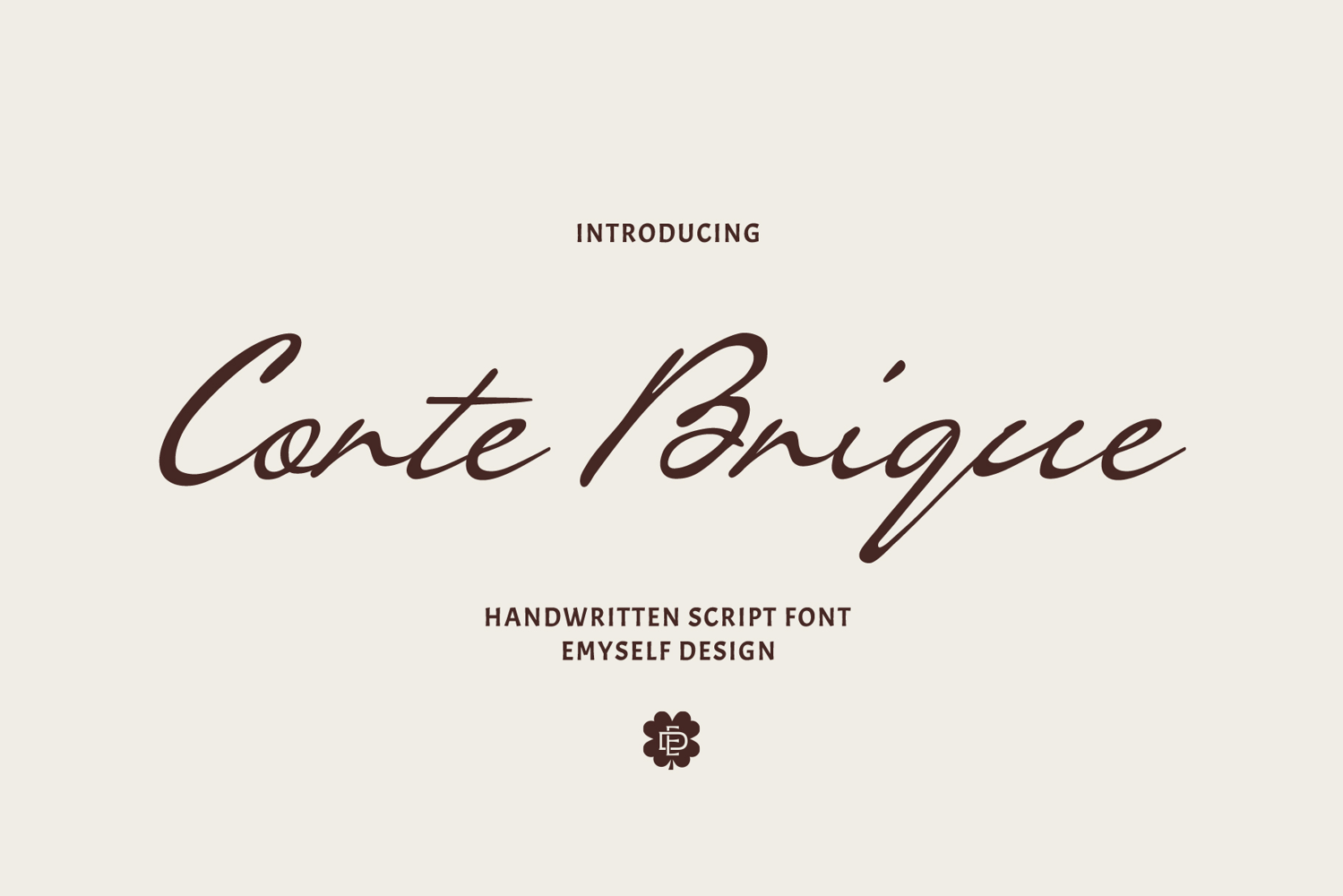
ED Corte Brique
ED Corte Brique is a handwritten script font that captures the effortless beauty of natural handwriting. With fluid strokes, elegant curves, and a subtle touch, this font is designed to bring a sense of warmth and authenticity to any design.
Perfectly suited for branding, editorial design, wedding invitations, quotes, or signature-style logos, ED Corte Brique delivers a delicate balance between sophistication and casual charm.
Crafted with attention to detail, this font offers smooth flow and legibility—making it ideal for both display use and longer text applications where a human touch matters.